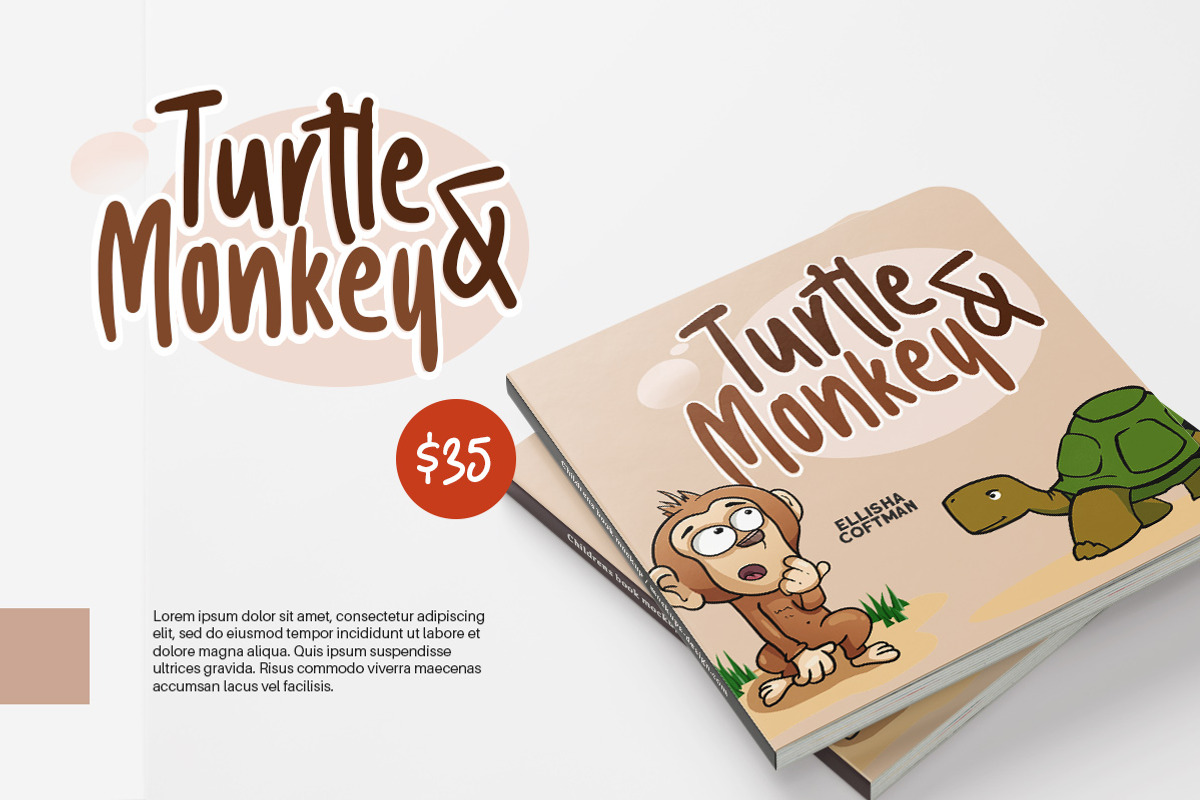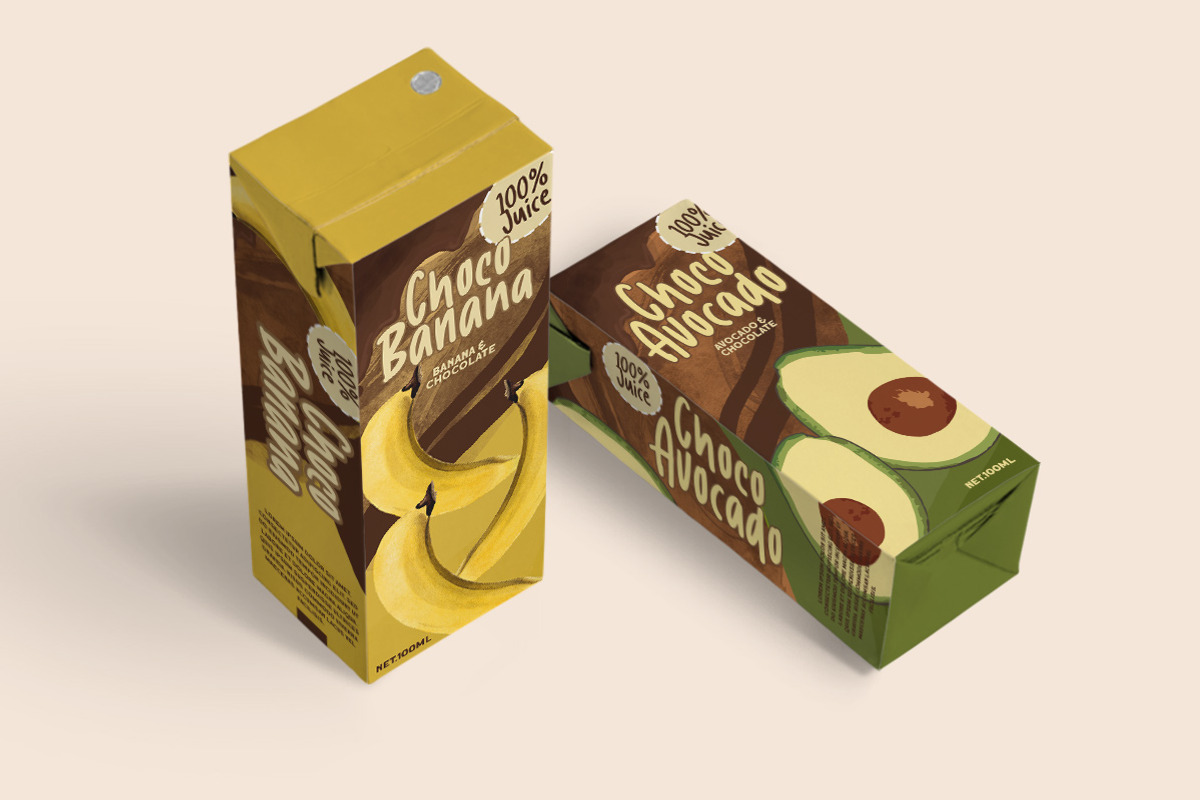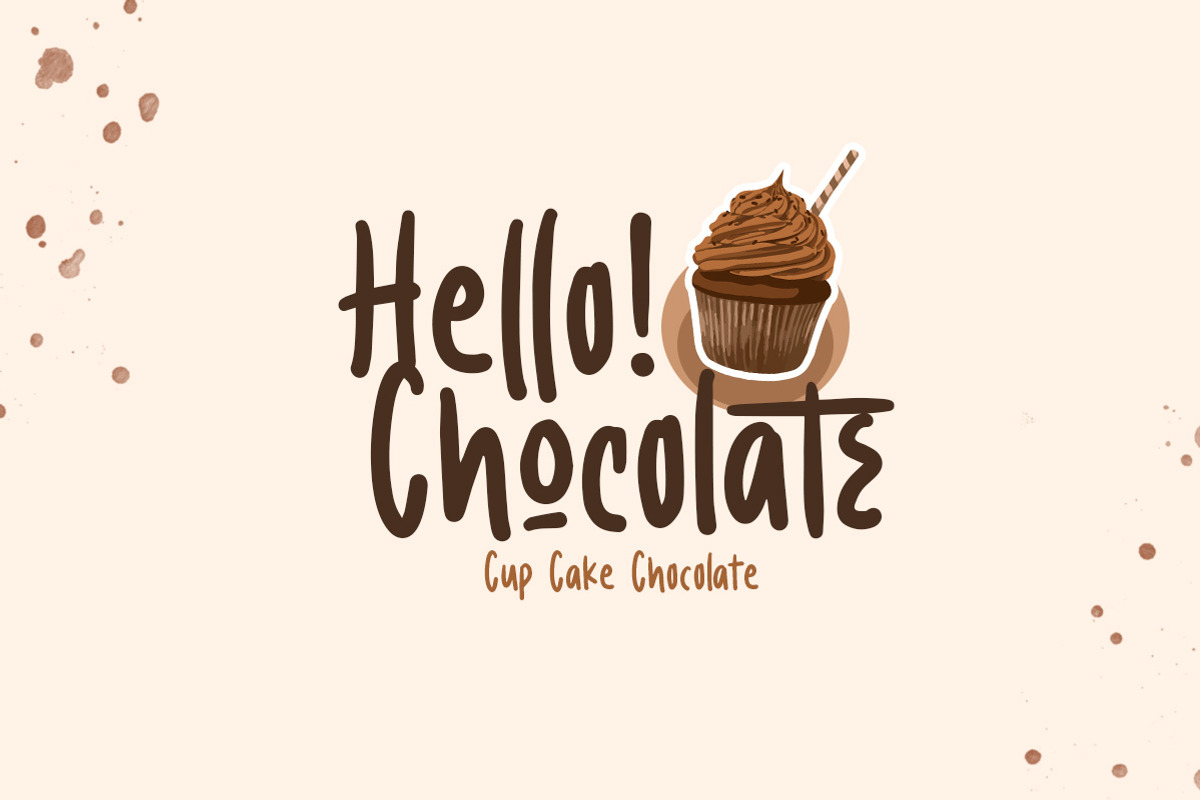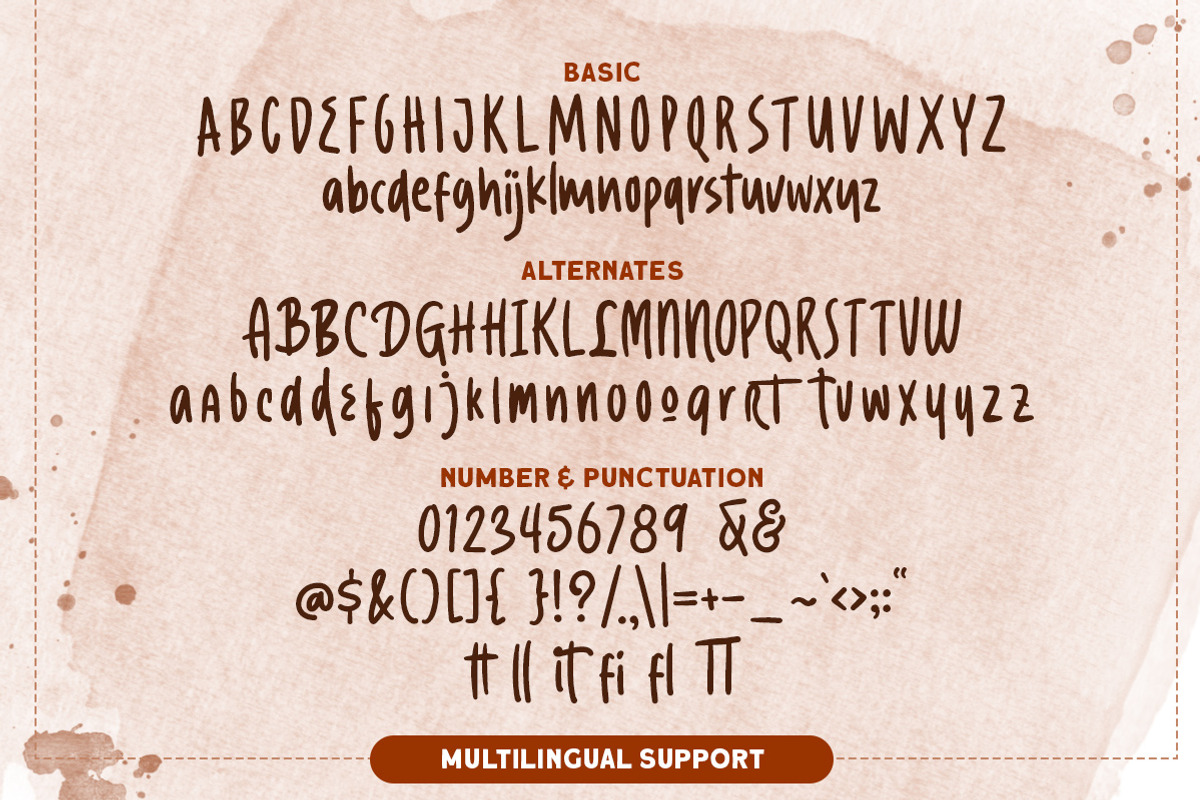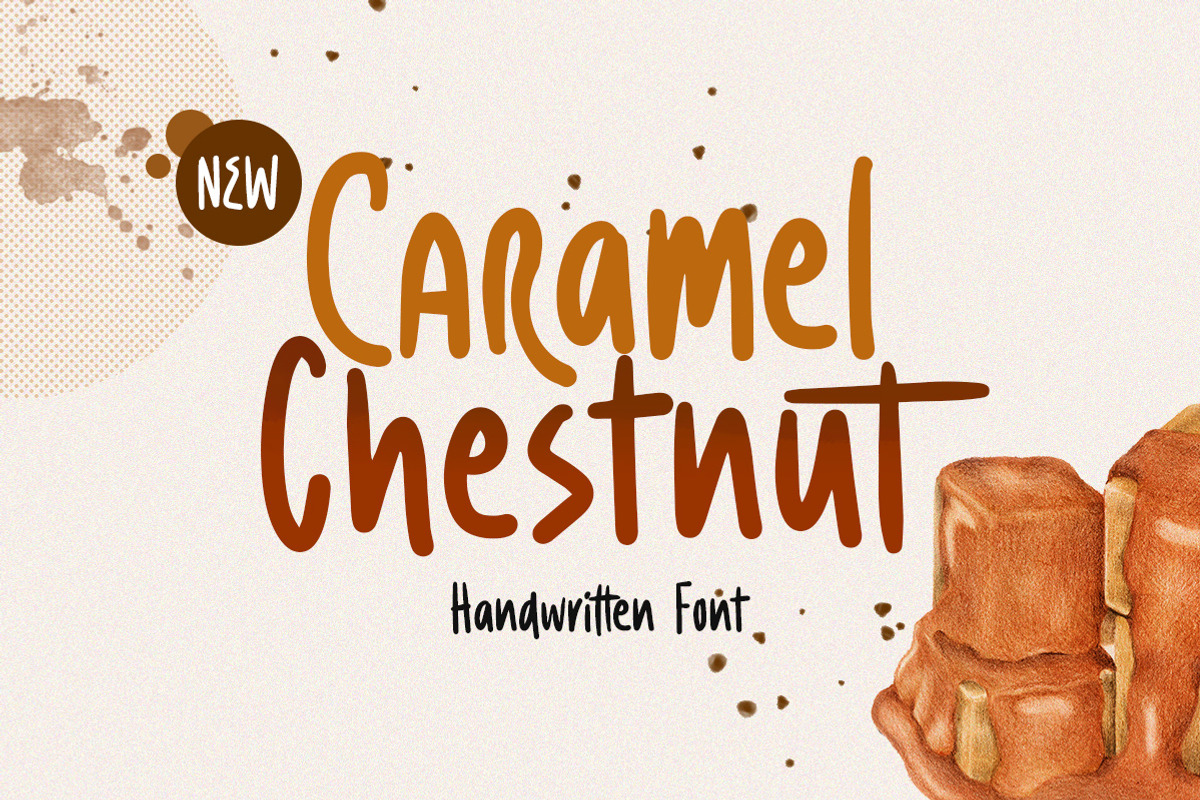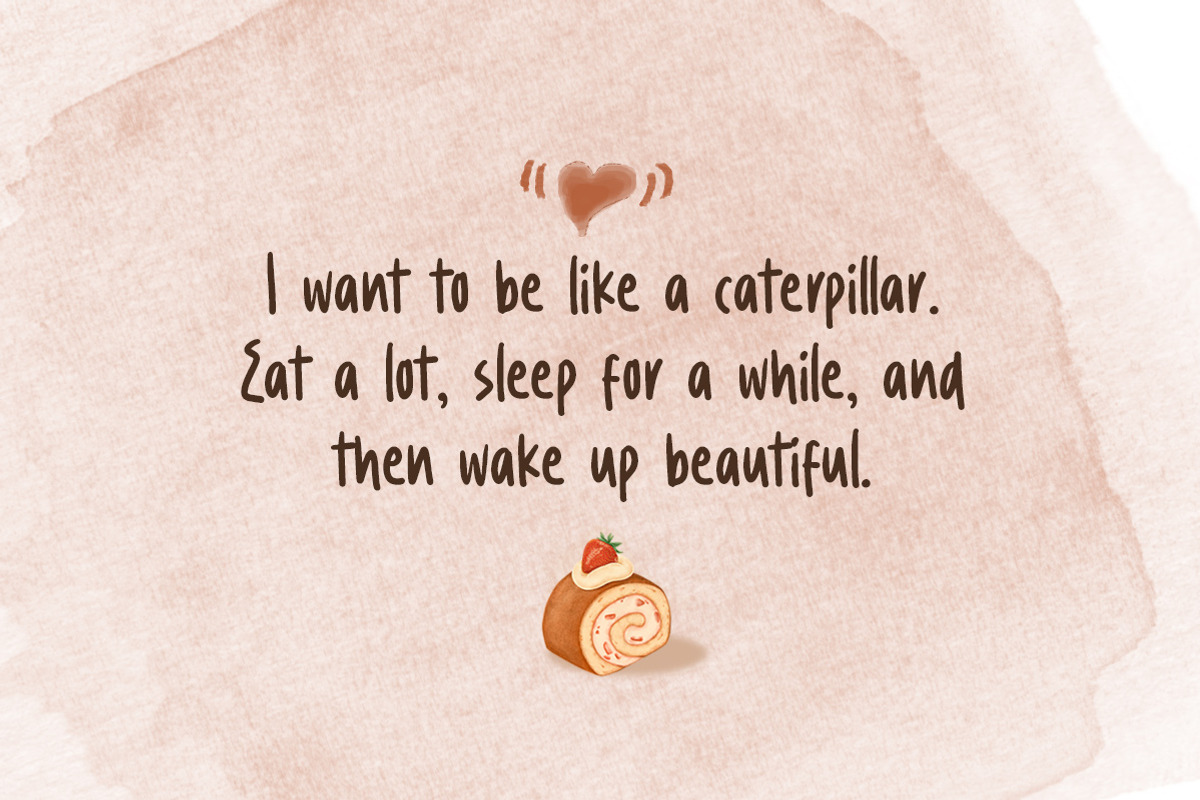
Caramel Chestnut - Handwritten Font
Introducing, Charamel chestnut! this font is a carefully crafted display font but still have an organic touch. this font is perfect for branding, packaging, headline, title, etc.
- alternates and ligatures